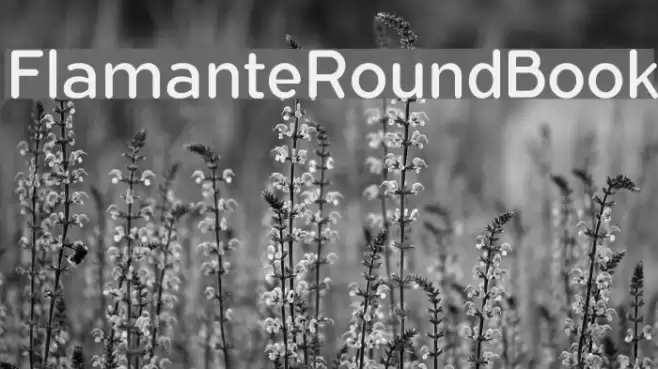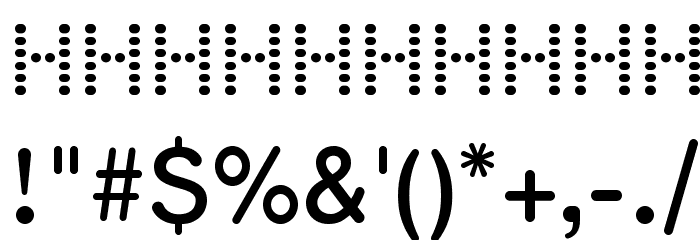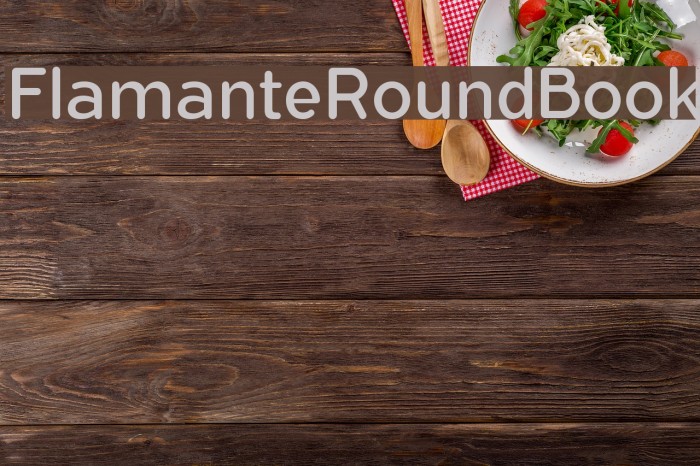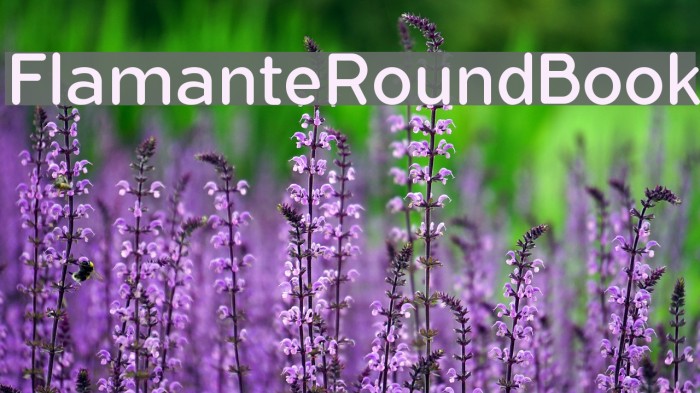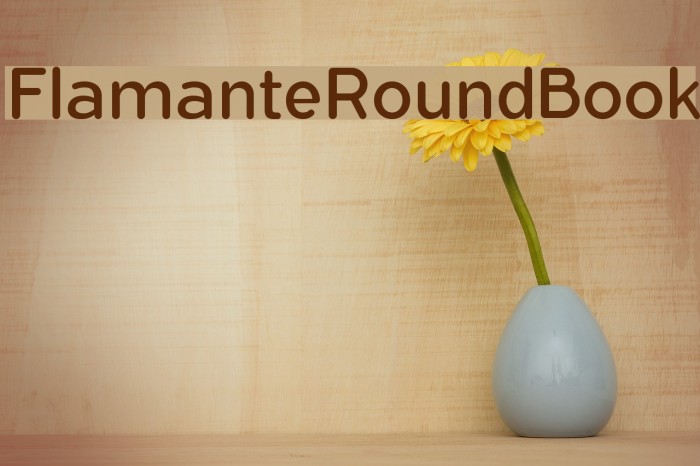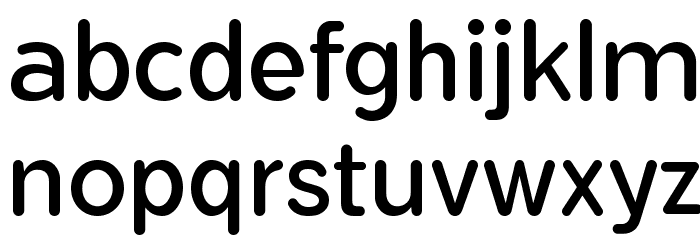
FlamanteRoundBook Font
FlamanteRoundBook Description
This font features a clean and modern sans-serif design with rounded edges, giving it a friendly and approachable appearance. The uniform stroke width and lack of serifs contribute to its contemporary style, making it highly legible at various sizes. The characters are well-proportioned, with a consistent height and width that ensures readability. The rounded terminals add a touch of softness, making it suitable for both digital and print media. Its simplicity and clarity make it versatile for a wide range of applications.
A modern, rounded sans-serif font with a clean and approachable design from Uncategorized fonts.
- Proposed Projects: Ideal for branding, web design, user interfaces, and advertising materials where a modern and friendly look is desired.